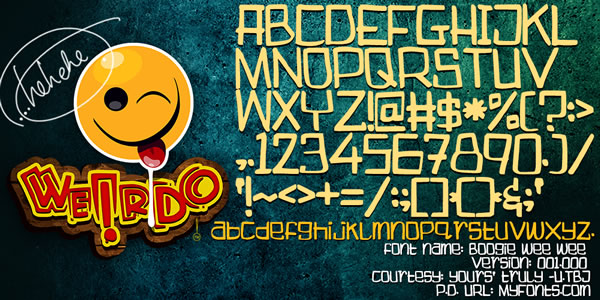
Boogie Wee Wee Font
Font Name : Boogie Wee Wee Font
Author : TBJ Ohab
Journey into the realm of visual aesthetics with Boogie Wee Wee Font, a display typeface that dances off the page with its playful and captivating charm. Designed by the renowned TBJ Ohab, Boogie Wee Wee embodies the essence of creativity, inviting you to add a touch of whimsy and personality to your designs.
Whether you're crafting eye-catching headlines, designing quirky logos, or creating personalized mugs, Boogie Wee Wee Font is your ultimate companion. Its playful nature lends itself effortlessly to a multitude of creative endeavors, adding a burst of energy and character.
Picture your designs adorned with Boogie Wee Wee's lively curves and cheerful letterforms. Imagine your words dancing across the page, evoking feelings of joy and lightheartedness. Let Boogie Wee Wee Font transform your projects into captivating expressions of your unique style.
Unlock the boundless potential of Boogie Wee Wee Font and embark on a creative adventure. Embrace its playful spirit, let your imagination soar, and watch as your designs come alive with a captivating energy that resonates with your audience.